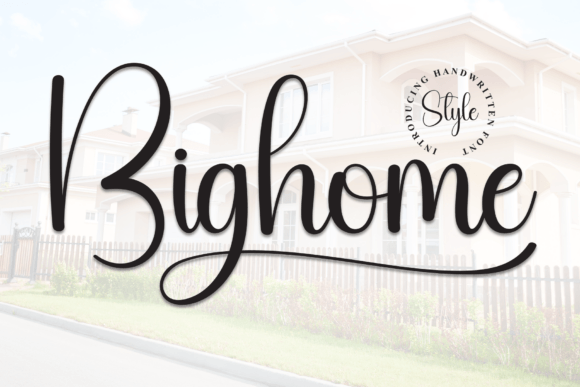
The Elegance of Bighome Font: A Designer’s Delight
I’ll never forget the time I was working on a wedding invitation project, and my client asked for a font that exuded elegance and sophistication. I scoured the internet, tried out countless fonts, but nothing seemed quite right. That was until I stumbled upon Bighome Font. ✨ It was love at first sight! The stylish and elegant script font instantly captured the essence of what I was looking for. In this article, I’ll share my experience with Bighome Font, its features, and how to make the most of it in your designs.
An Honest Review of Bighome Font
- ✨ Elegant and stylish script font perfect for wedding invitations, thank you cards, and greeting cards
- 💫 Beautifully crafted with a handwritten touch
- 🎨 Versatile and can be used for a variety of design projects, including logos and business cards
While Bighome Font is an excellent choice for many design projects, there are a few things to keep in mind: 🤔
- ⚠️ Limited use of uppercase letters, which may not be ideal for certain designs
- ⚠️ Some users may find the font a bit too ornate for certain projects
A Practical Guide to Using Bighome Font
- Experiment with OpenType features, such as glyphs and stylistic alternates, to add more flair to your design
The Backstory of Bighome Font
Bighome Font was designed with the intention of creating a beautiful, elegant script font that captures the essence of handwritten writing. The designer aimed to create a font that’s both stylish and legible, perfect for a range of design projects. 💫
Q: What type of projects is Bighome Font best suited for?
A: Bighome Font is perfect for wedding invitations, thank you cards, quotes, greeting cards, logos, business cards, and any other design that needs a handwritten touch.
Q: Is Bighome Font easy to read?
A: Yes, Bighome Font is highly legible, even at smaller font sizes. Its elegant and stylish design makes it perfect for a range of design projects.